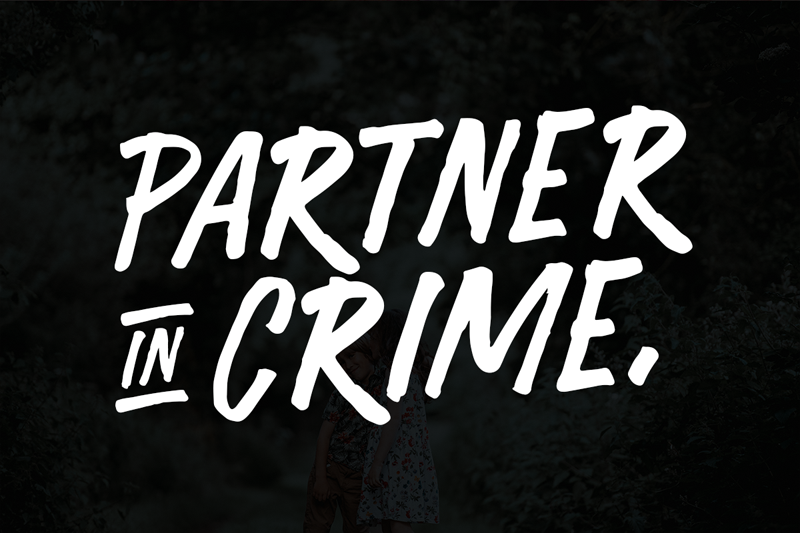
Friend To Mother Font
Friend To Mother Font is a simple and friendly handwritten font. Its natural and unique style makes it incredibly fitting to a large pool of designs. The only limit is your imagination!